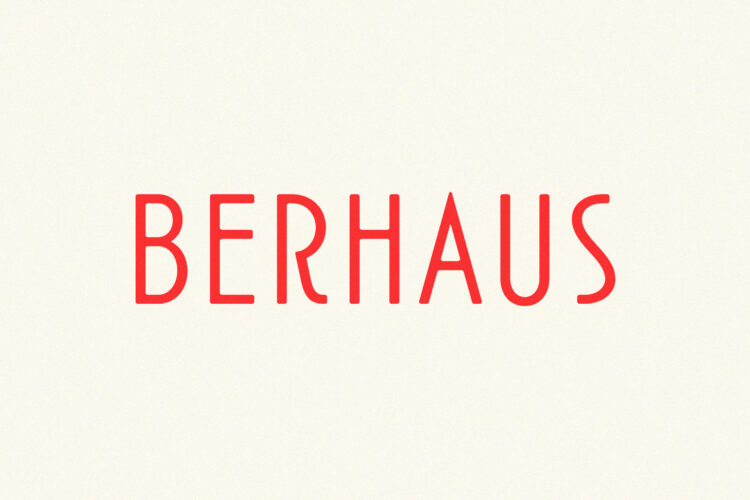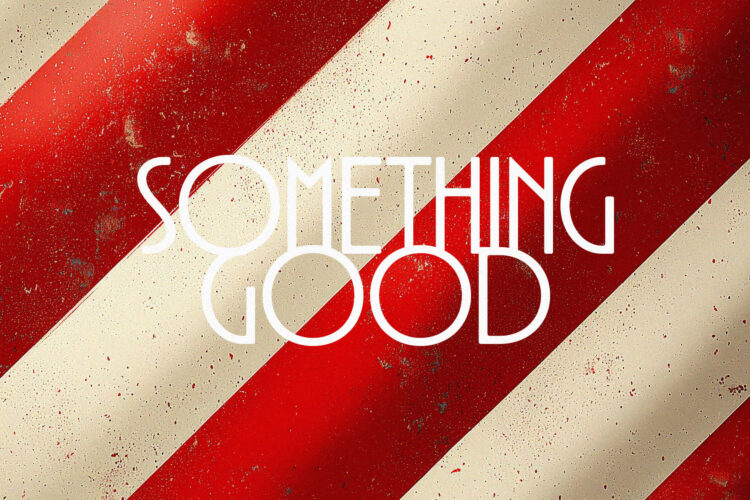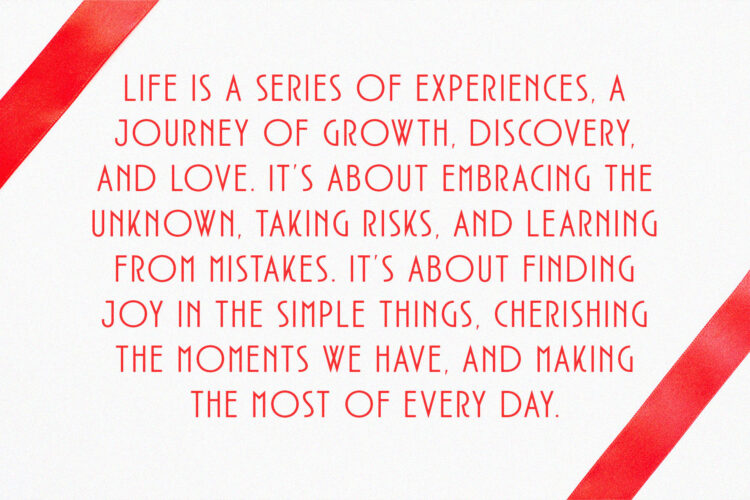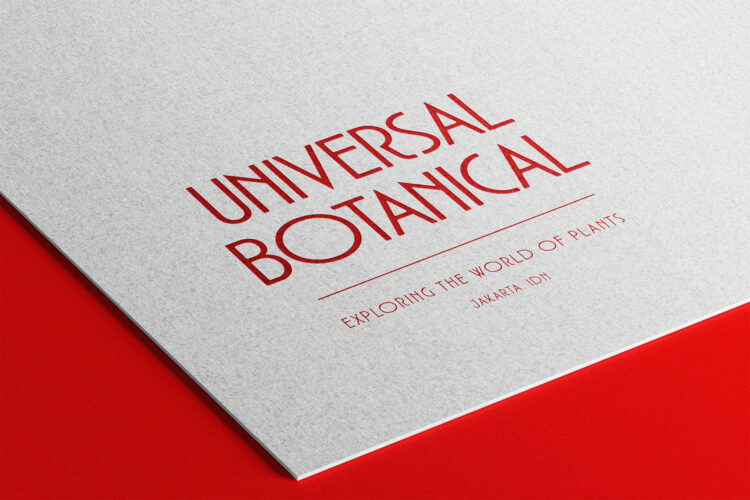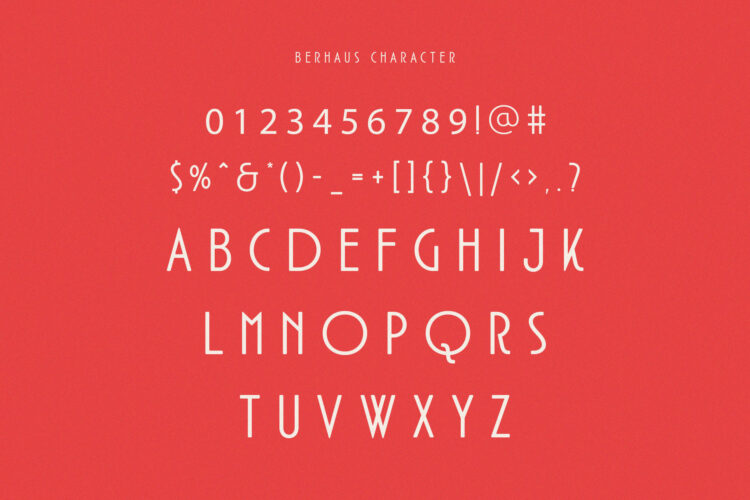
Introducing Berhaus Vintage Condensed Sans.
Berhaus is a modern and elegant font, best used as a display for headings, logos, branding, magazines, product packaging and invitations. Berhaus come with clean lines and smooth curves give any project an extra touch of class.